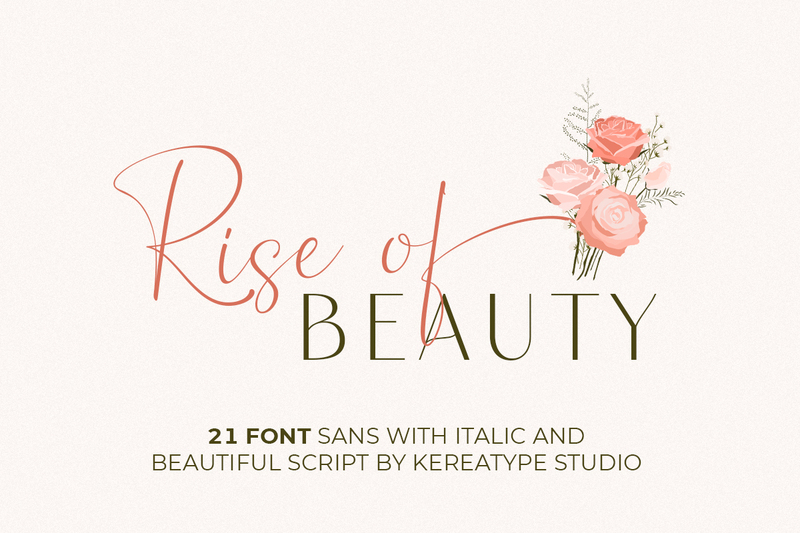
Rise Of Beauty Font
Designed by Kereatype Studio
About Rise Of Beauty
Elevate your designs with Rise of Beauty, a sophisticated blend of modern sans serif and elegant script fonts.
This versatile font duo offers 21 styles, including regular, italic, and script variations, perfect for luxury branding, wedding invitations, social media posts, logos, and product packaging.
With 335 glyphs, multilingual support, and advanced features like stylistic alternates and ligatures, it’s ideal for creating high-end, professional designs. Compatible with Adobe, Canva, and Procreate, this font bundle is your go-to for timeless, elegant typography.